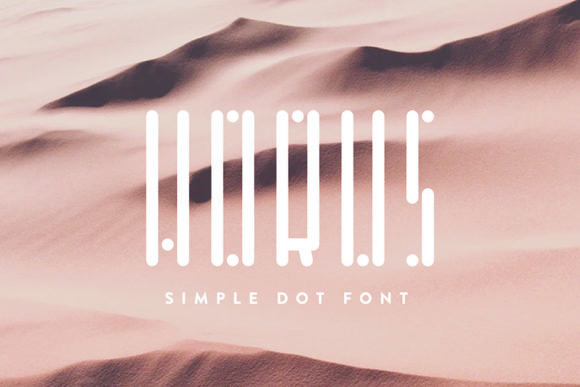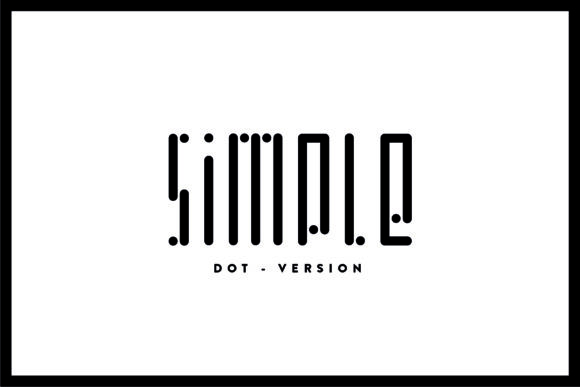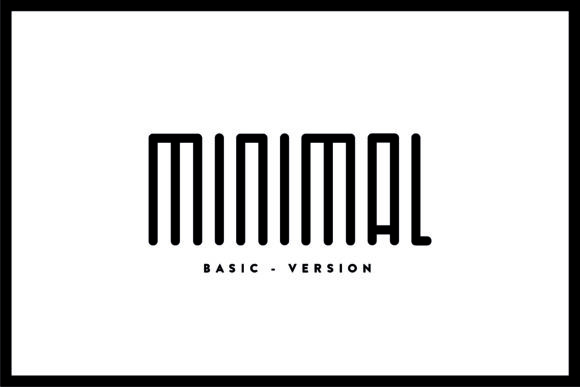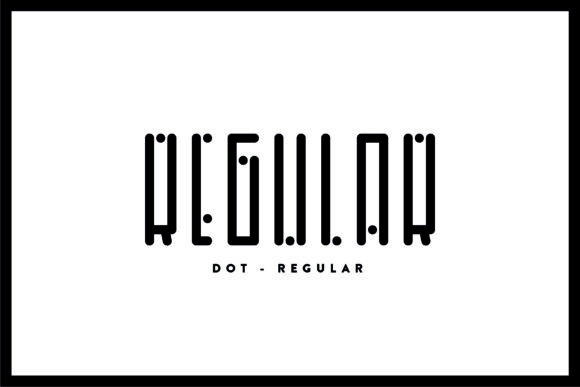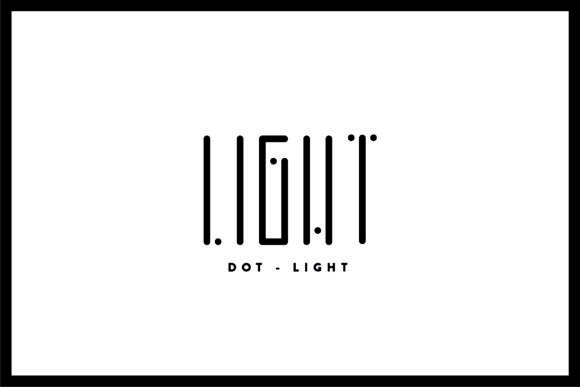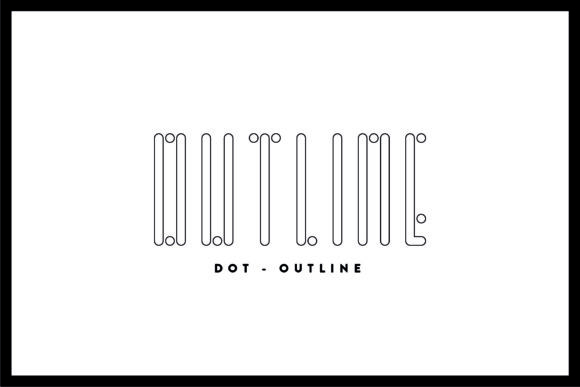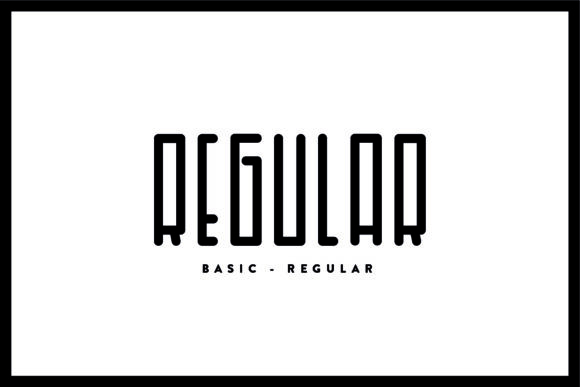
The Horus Font: Unleashing Creativity in a Futuristic World
Have you ever been stuck in a creative rut, staring at a blank page or screen, wondering what to create next? It’s a feeling many designers can relate to. But what if I told you that a single font could transport you to a world of endless possibilities? Welcome to the world of the Horus Font, an incredibly cool and interestingly shaped display font that’s about to revolutionize your designs.
Designed with the purpose of pushing the boundaries of creativity, the Horus Font is a game-changer for designers. With its futuristic aesthetic, it’s perfect for creating techno art, web design, and futuristic logos that are sure to impress. By incorporating this font into your designs, you’ll add a touch of sophistication and modernity that’s hard to achieve with other fonts.
Horus Font Key Features
- Font Family: Horus Font is a sans-serif font family designed for digital use.
- Unique Characteristics: Horus Font features a unique blend of modern and futuristic elements, with clean lines, geometric shapes, and subtle nuances.
Horus Font Review
As a designer, I’ve had the chance to work with the Horus Font, and I must say it’s a mixed bag. ✨
- Highly customizable – Horus Font offers a wide range of font styles and sizes, making it perfect for designers who like to experiment.
- Modern and sleek design – The font has a clean and sophisticated look that’s perfect for contemporary designs.
- Great for digital use – Horus Font is optimized for digital use, making it perfect for web and mobile applications.
However, there are some limitations:
- Not ideal for print use – The font’s design is not optimized for print, and it can look a bit pixelated when used in large formats.
- Not as versatile as other fonts – While Horus Font is great for digital use, it’s not as versatile as other fonts and may not be suitable for all types of designs.
- Some users may find it too bold – The font’s design can be a bit overwhelming for some users, especially those who prefer more subtle designs.
Overall, I’d say that Horus Font is a solid choice for designers who need a modern and sleek font for digital use. However, it’s not ideal for print use or for designers who need a more versatile font.
The Horus Font is a versatile and elegant font suitable for various design projects, including:
- Wedding invitations and event materials
- Book covers and book titles
Alternatives to Horus Font
Horus Font is a popular sans-serif font known for its clean and modern design. However, it may not be suitable for every design project. Here are a few alternatives that designers can consider: